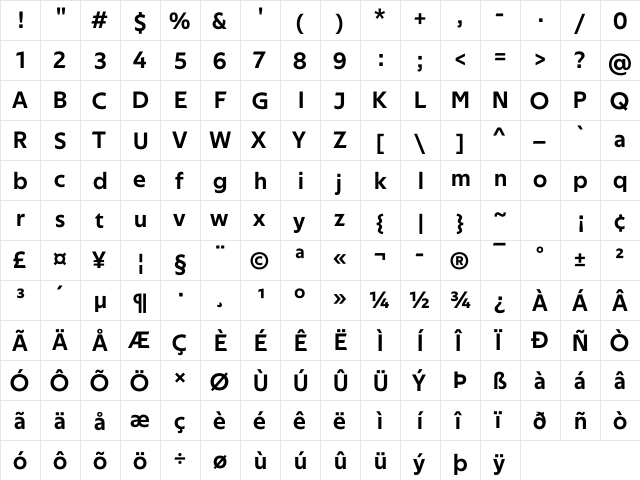
Techna Sans Regular
| Designer | Carl Enlund |
Design Context for Techna Sans Typeface
Techna Sans has a distinctly futuristic character, with geometric precision and clean angles that feel at home in technology, gaming, and sci-fi contexts.